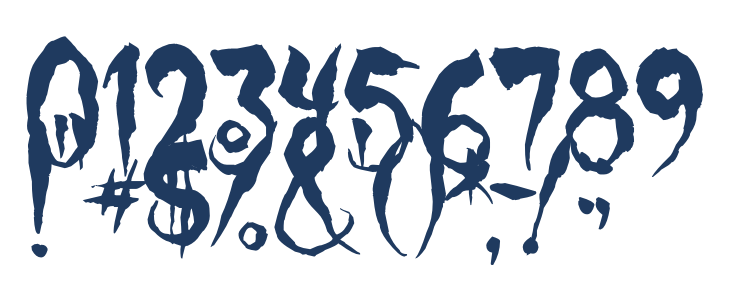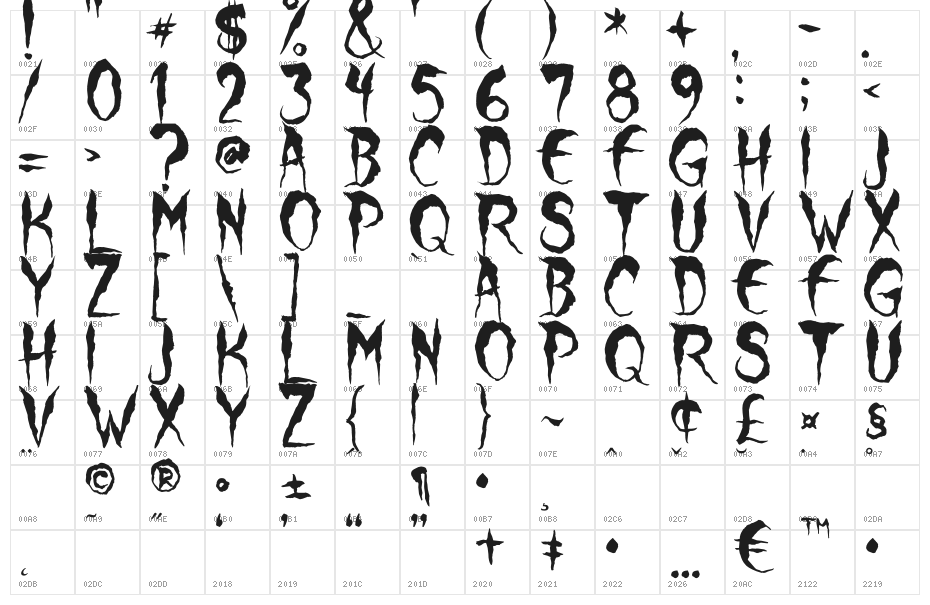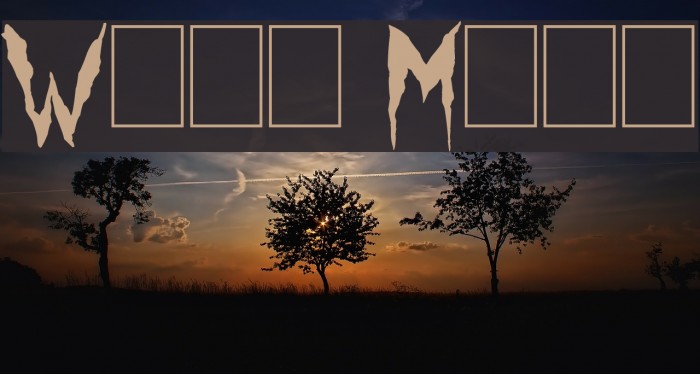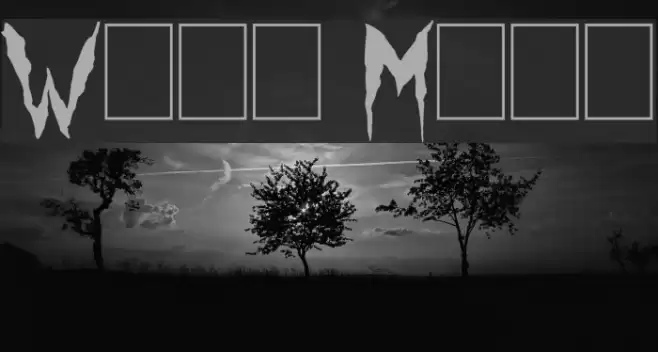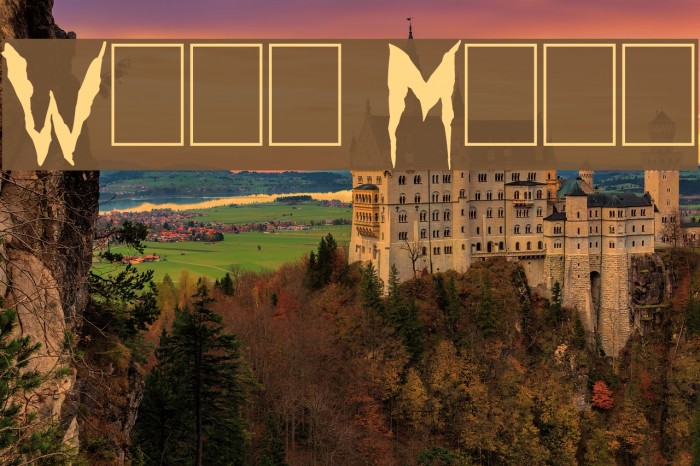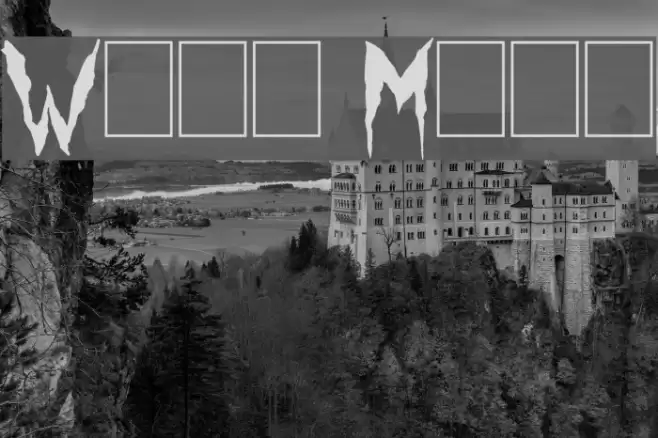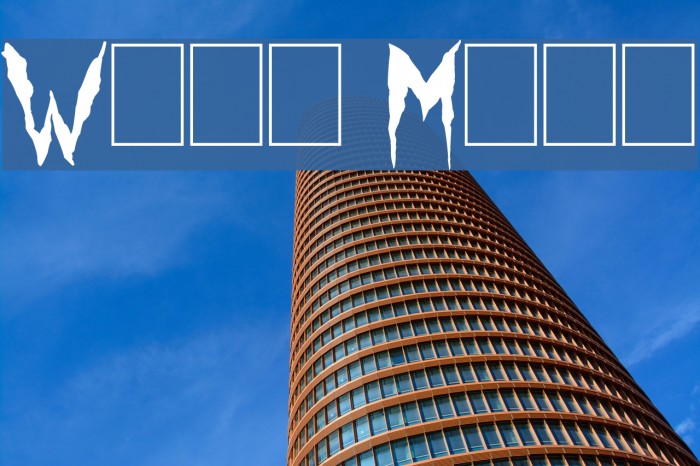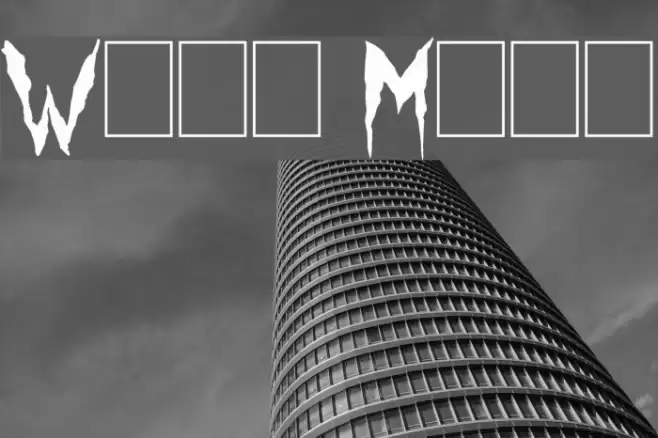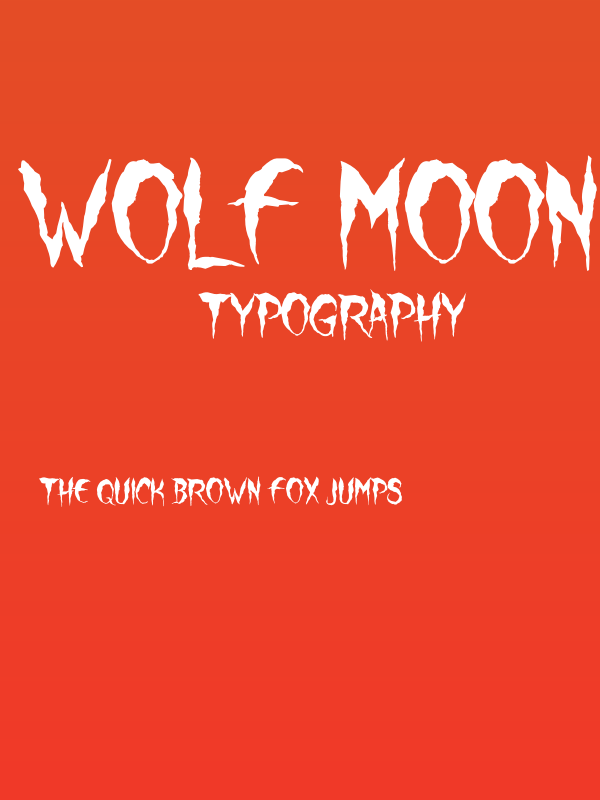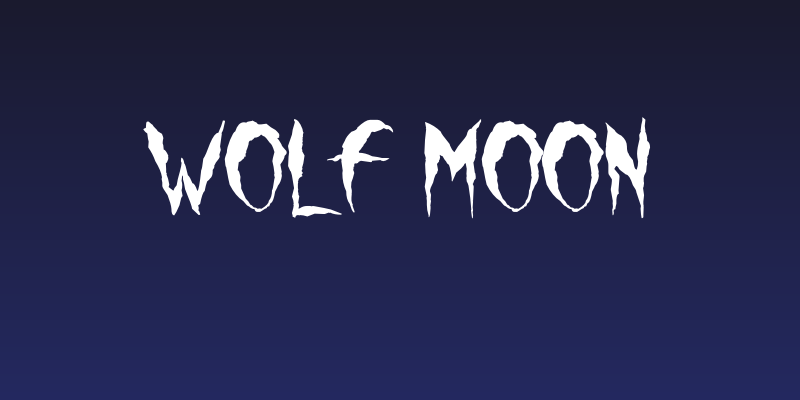
Wolf Moon Font
Wolf Moon Description
This font exudes a wild and untamed energy, reminiscent of claw marks or jagged edges. The letters are irregular and sharp, giving a sense of movement and intensity. Each character seems to have been scratched or carved, creating a raw and primal aesthetic. The numbers and special characters follow the same rugged style, enhancing the overall theme of wilderness and ferocity. This font is perfect for projects that require a bold and dramatic impact, capturing attention with its unique and fierce design.
| Proposed Projects | Ideal for horror movie posters, edgy branding, Halloween events, or any project needing a dramatic and fierce visual impact. |